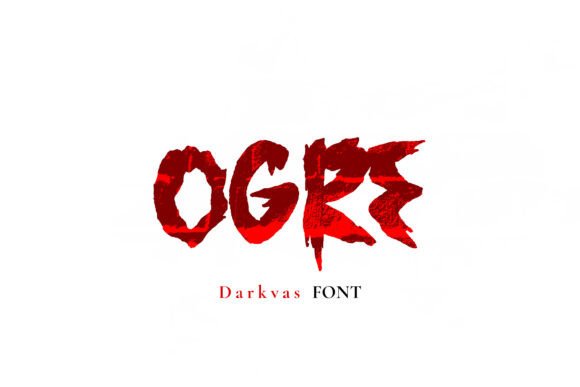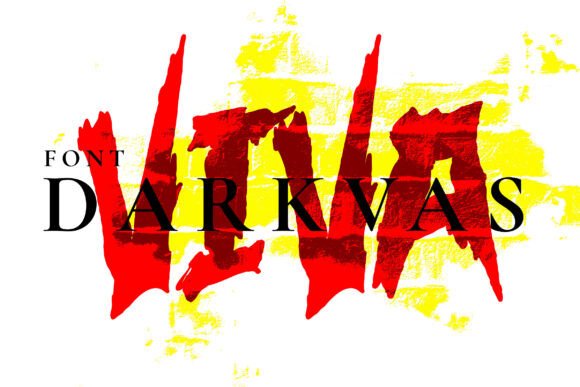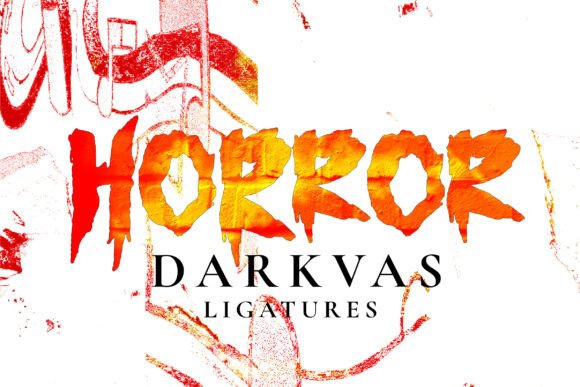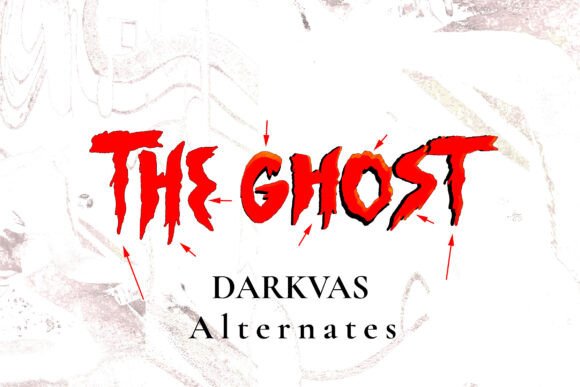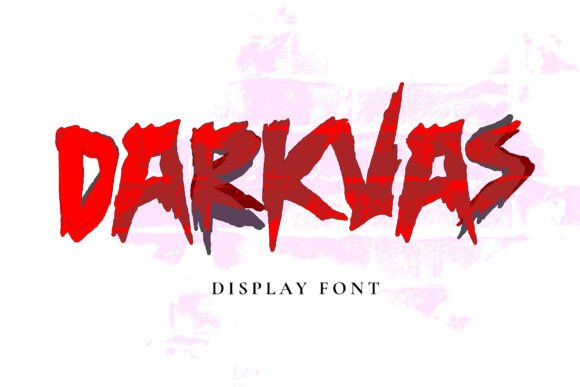
Unleash the Spook: Discover the Darkvas Font for Your Halloween Needs
As the witching hour approaches, designers and crafters are on the lookout for the perfect typography to add a spine-tingling touch to their Halloween creations. Look no further than the Darkvas Font, a scary, creepy, quirky, and cool display font that’s sure to cast a spell on your audience. In this article, we’ll dive into the world of Darkvas, exploring its features, uses, and benefits for your October-themed projects.
What is Darkvas Font?
Darkvas is a unique and eye-catching display font designed to evoke the eerie and mysterious atmosphere of Halloween. With its bold and quirky design, this font is perfect for creating eye-catching invitations, cards, greetings, and social media posts that will leave a lasting impression on your audience.
Key Features of Darkvas Font
- Scary and Creepy Design: The font’s design is carefully crafted to evoke a sense of spookiness and eeriness, making it perfect for Halloween-themed projects.
- Quirky and Cool: Darkvas font has a quirky and cool touch that sets it apart from other display fonts, making it ideal for designers and crafters looking for something unique.
- Multipurpose: You can use Darkvas font on a wide range of projects, including October party invitations, cards, greetings cards, social media posts, and more.
Uses of Darkvas Font
Darkvas font is incredibly versatile, and its uses are endless. Here are some ideas to get you started:
- Halloween Party Invitations: Create spooky and eye-catching invitations that will set the tone for your Halloween party.
- Cards and Greetings: Design creepy and quirky cards and greetings for your friends and family.
- Social Media Posts: Add a touch of spookiness to your social media posts and make them stand out.
- Crafting Projects: Use Darkvas font on your crafting projects, such as DIY decorations, scrapbooking, and more.
Benefits of Using Darkvas Font
So, why choose Darkvas font for your Halloween projects? Here are some benefits:
- Unique Design: Darkvas font has a unique and eye-catching design that will make your projects stand out.
- Multipurpose: You can use Darkvas font on a wide range of projects, from invitations to social media posts.
- Time-Saving: With Darkvas font, you can create professional-looking projects in no time, saving you time and effort.
Tips for Using Darkvas Font
To get the most out of Darkvas font, here are some tips:
- Experiment with Different Sizes: Play around with different font sizes to create a unique and eye-catching design.
- Combine with Other Fonts: Combine Darkvas font with other fonts to create a unique and interesting design.
- Use on Dark Backgrounds: Use Darkvas font on dark backgrounds to create a spooky and eerie effect.
In conclusion, Darkvas font is a must-have for designers and crafters looking to add a touch of spookiness to their Halloween projects. With its unique design, PUA encoding, and multipurpose uses, this font is sure to cast a spell on your audience. So, don’t miss out on the opportunity to unleash the spook and make your projects stand out with Darkvas font.